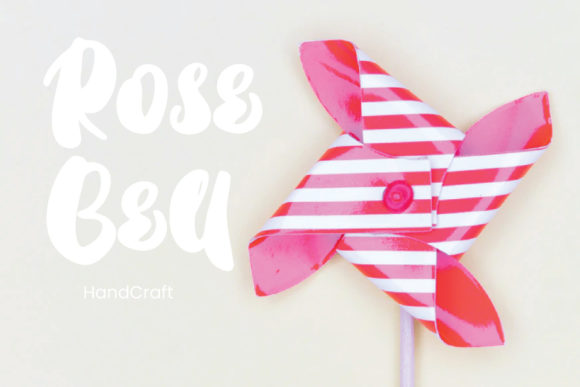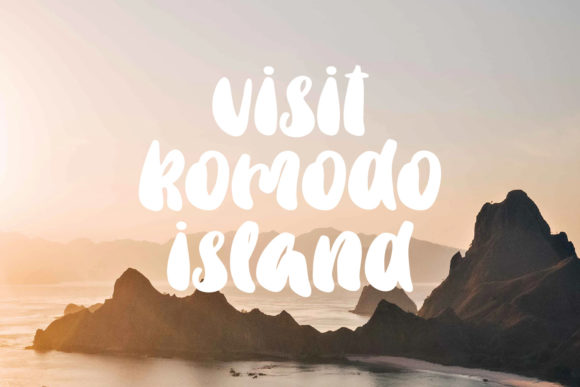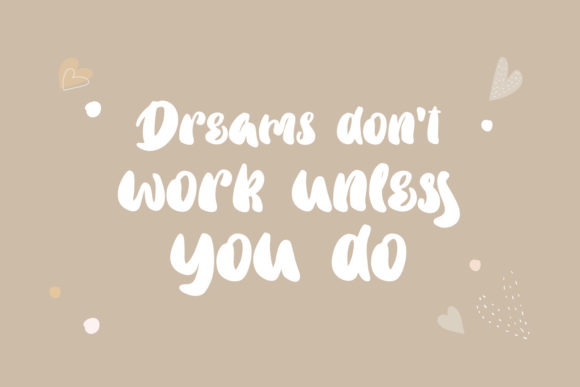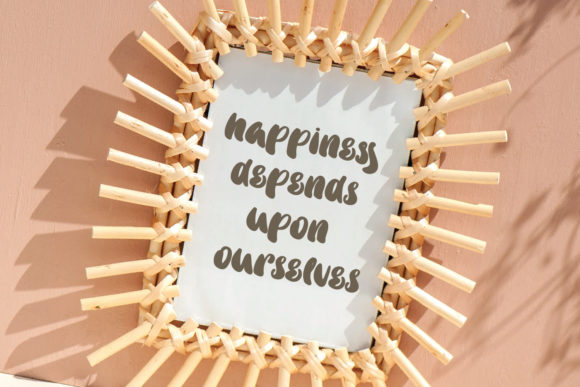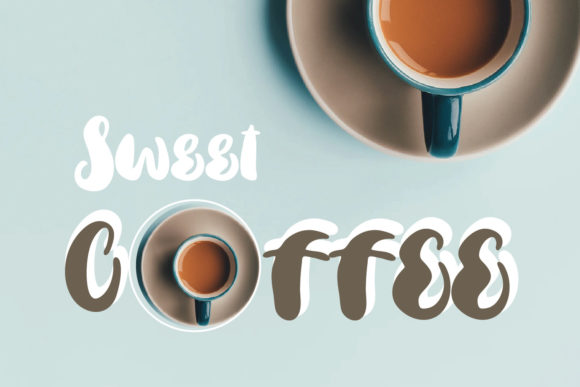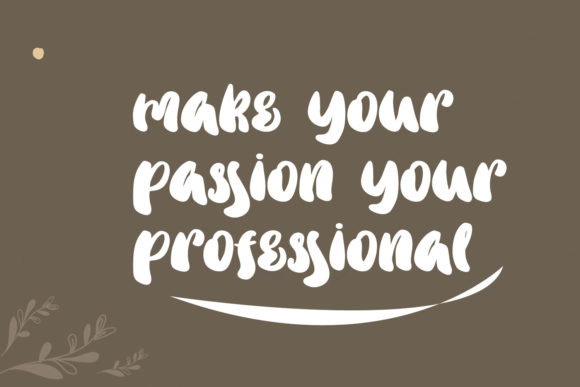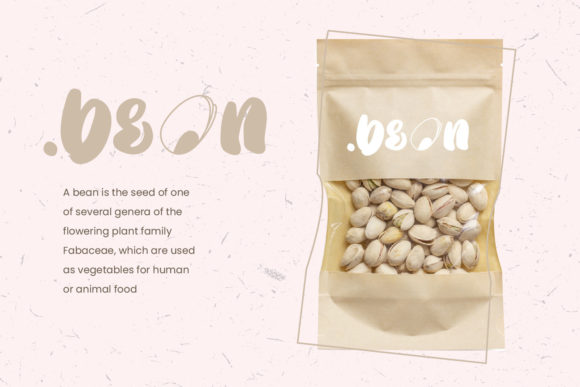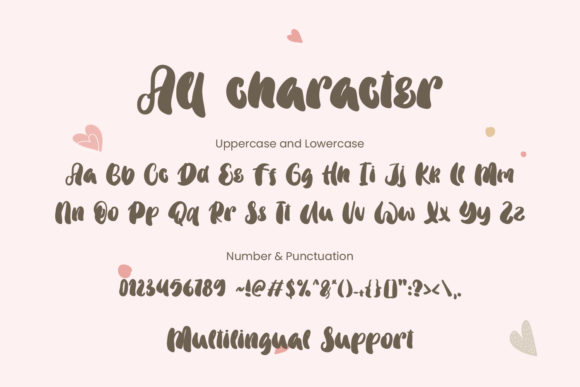
Healthy Glossy Font
Healthy Glossy is a chic, refined script font that emanates sophistication and elegance. Its stylish alternates and ligatures make this font the perfect match for any project.